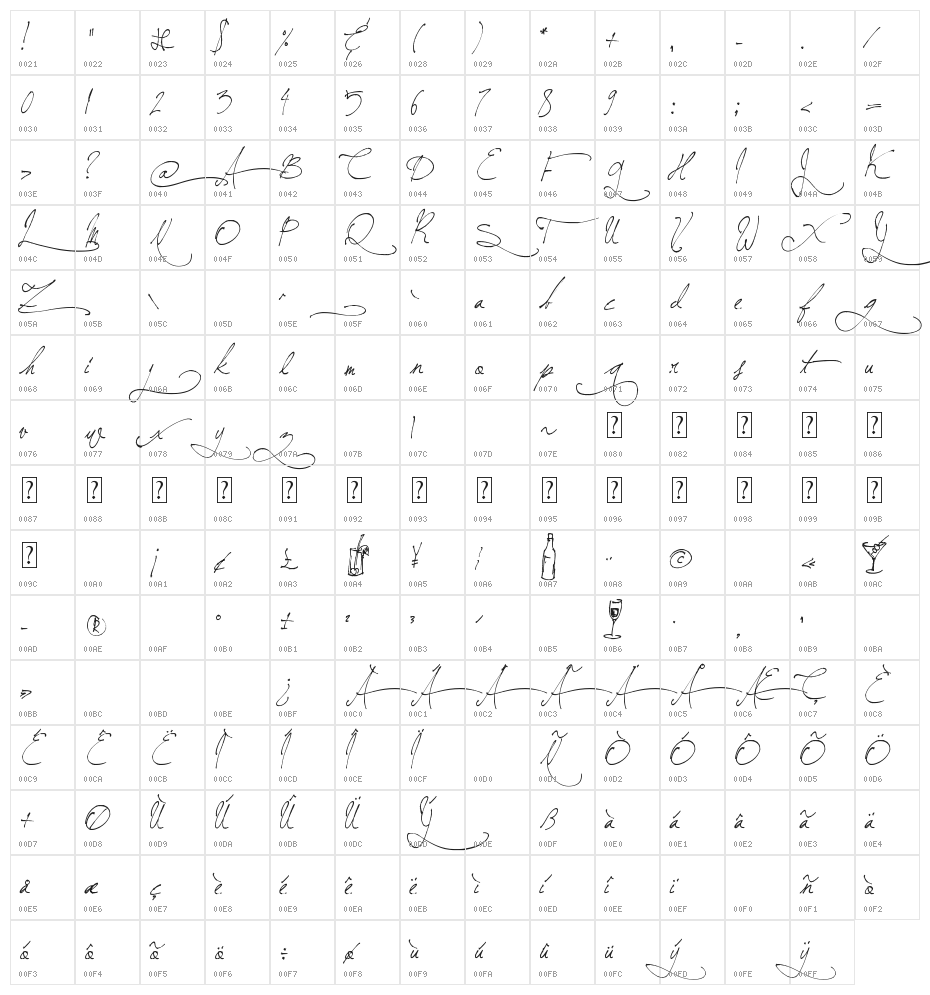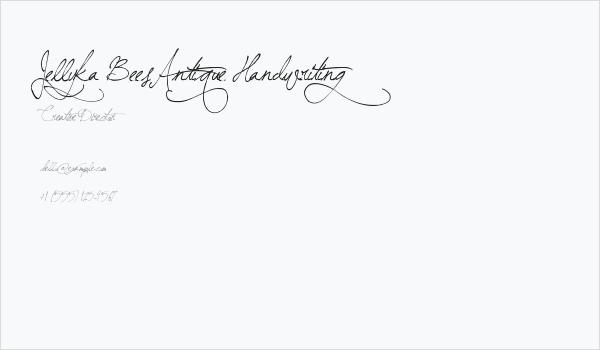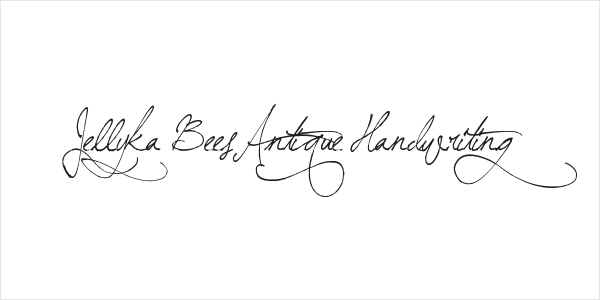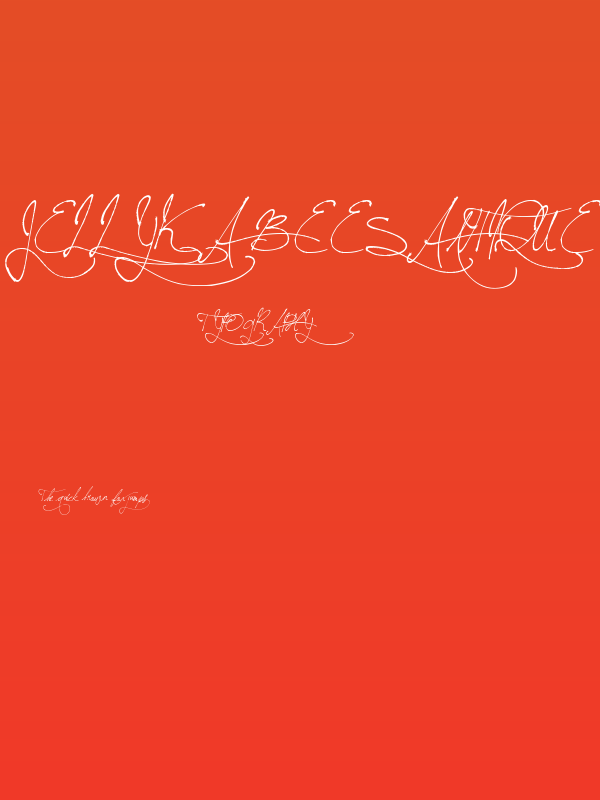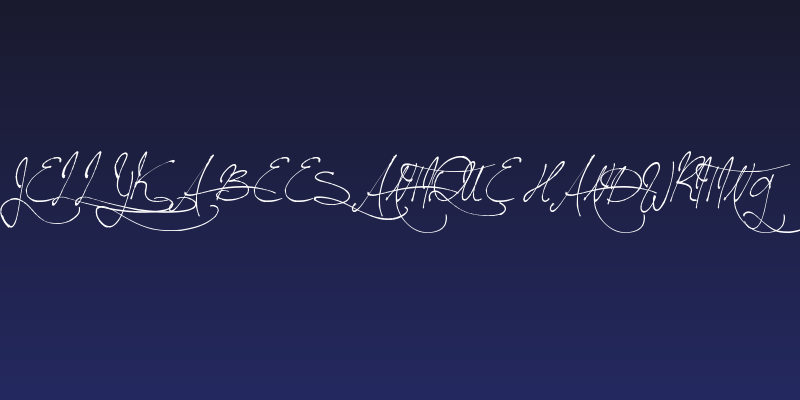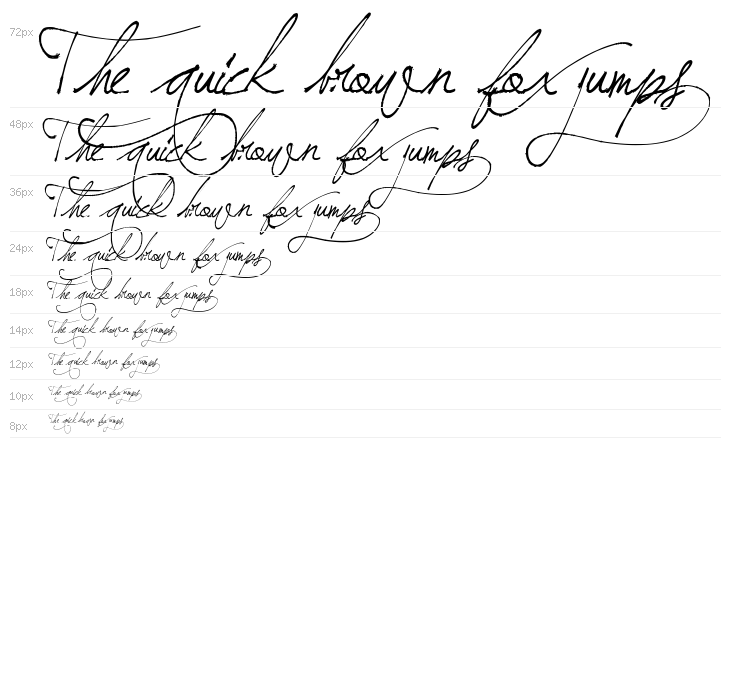
Jellyka BeesAntique Handwriting Font
Jellyka BeesAntique Handwriting Description
This font exudes an elegant and antique charm, reminiscent of classic handwriting styles. The characters are intricately designed with flowing, cursive strokes that give a sense of fluidity and grace. Each letter is adorned with elaborate loops and swirls, creating a sense of movement and sophistication. The uppercase letters are particularly ornate, with extended flourishes that enhance their decorative appeal. The lowercase letters maintain a consistent style, with a slightly more subdued flair, ensuring readability while retaining the font's artistic essence. Numbers and special characters are crafted with the same attention to detail, seamlessly integrating with the overall aesthetic. This font is ideal for projects that require a touch of vintage elegance and artistic flair.